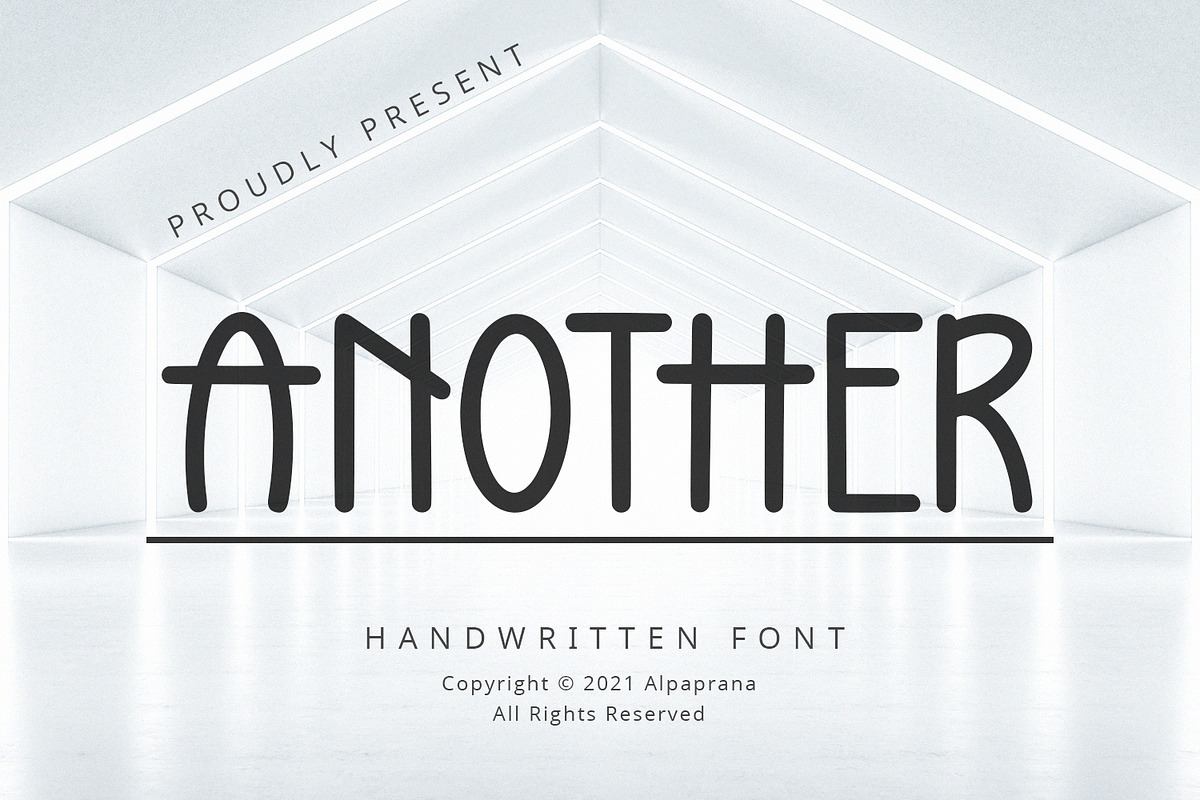
Another - Handwritten Font Free Download
Another Handwritten Font Free Download
Another Handwritten Font Free Download is a casual and stylish script typeface that captures the charm of natural handwriting. With its smooth strokes, slightly imperfect lines, and relaxed vibe, this font is perfect for personal branding, quotes, blog headers, social media graphics, and creative projects that call for a warm, personal touch.
Designed to feel authentic and approachable, Another Handwritten Font Free Download includes ligatures and alternates to help you craft typography that feels custom and expressive. It’s ideal for both digital and print applications where character and charm are key.